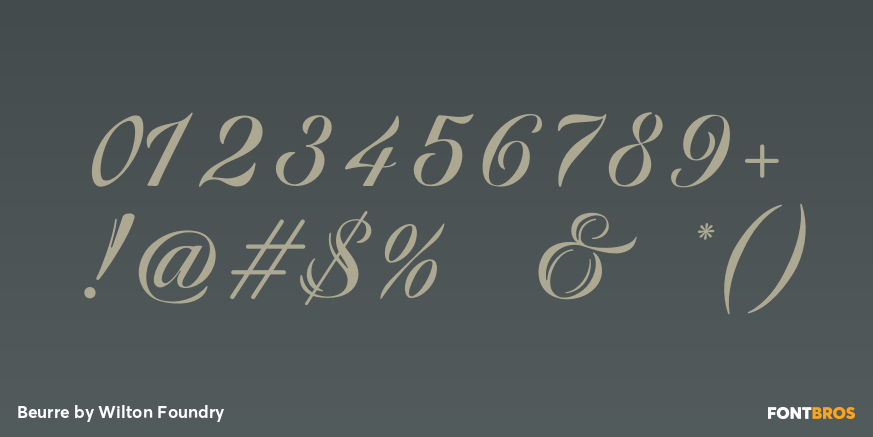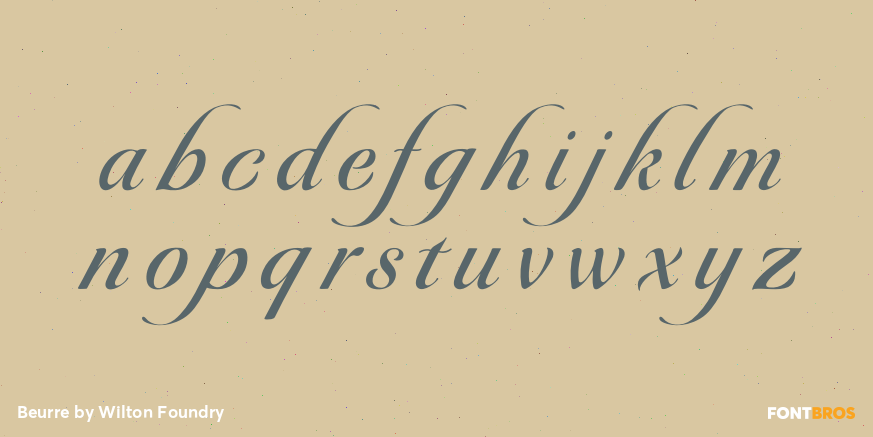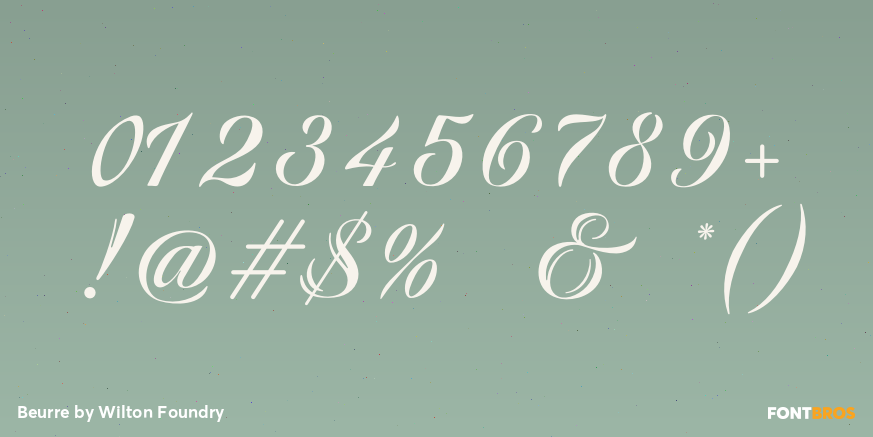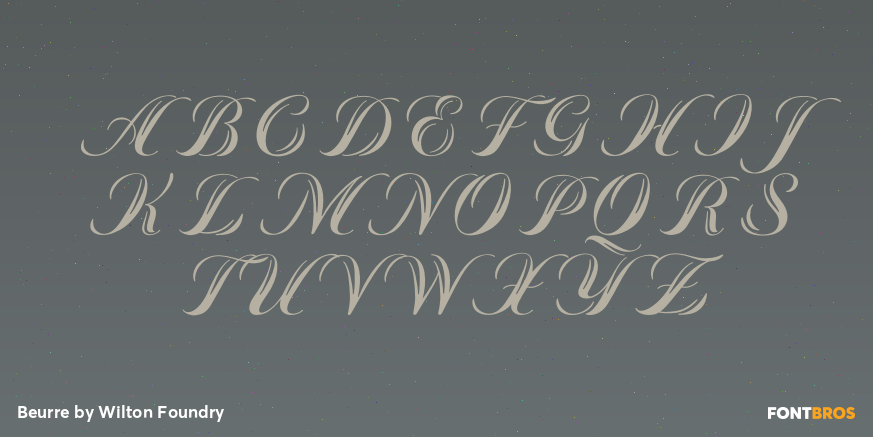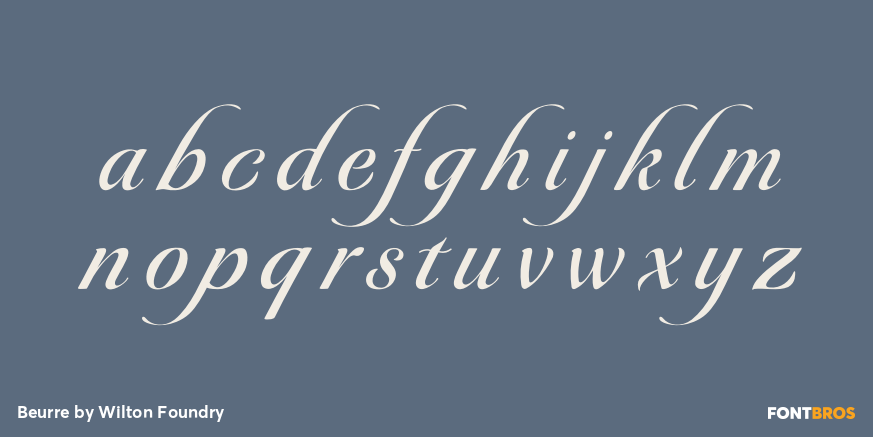
Beurre
Font Family by Wilton Foundry
Picture a butter knife that slices into butter, slowly wedging the cut wider so that when it is pulled back, the remaining shape would resemble the main downstroke of any capital letter. The lowercase characters have an almost roundhand-like character but with a slightly more formal presence. Beurre is ideal for Menus, Invitations and pretty much anywhere you need a reasonably strong, but friendly legible script.